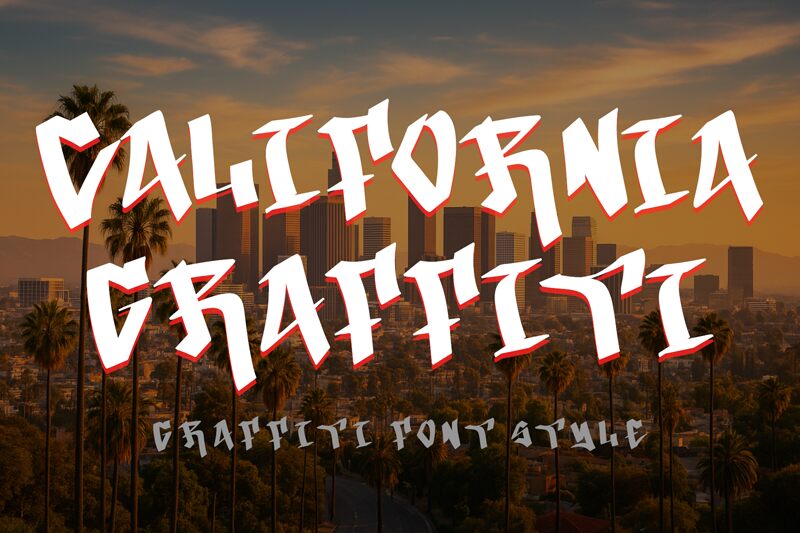
California Graffiti font designed by Yoga Letter is a free font inspired by the dynamic and rebellious world of graffiti. This graffiti-inspired font offers an urban aesthetic with an edgy feel reminiscent of the artistic expression seen in cityscapes. With a contemporary style and modern subculture influence, it is ideal for adding a unique touch with hints of urban culture.
The font’s dynamic presence makes it suitable for posters, album covers, apparel design, logos, streetwear branding, social media graphics, signage, book covers, art installations, and event flyers.